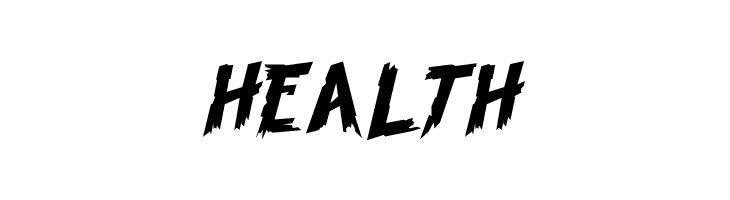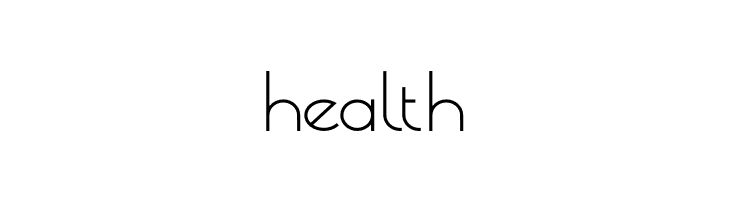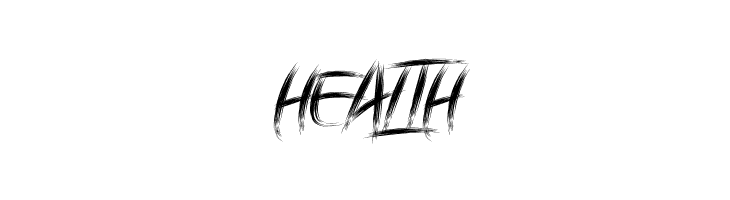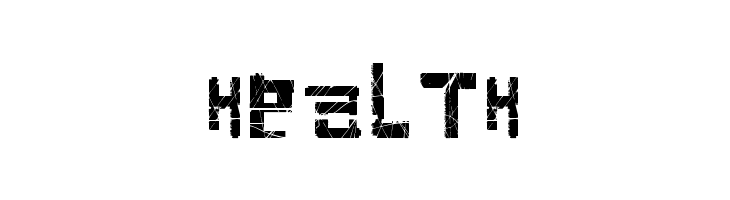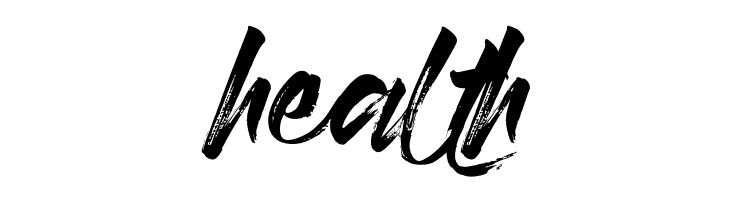
An elegant, flowing script font with sophisticated curves and loops.
A bold, jagged font with dynamic brush-like strokes.
A modern, narrow font with a clean and geometric design.
A bold, brush-style font with sharp, angular strokes and a dynamic, hand-drawn aesthetic.
A bold, fragmented font with a shattered glass effect, featuring angular and irregular shapes.
A playful handwritten font with fluid, dynamic strokes and a relaxed appearance.
A decorative script font with playful swirls and loops.
An elegant, decorative script font with outlined, swirling characters.
A dynamic and expressive handwritten font with fluid strokes and artistic flair.
A bold, brush-style font with dynamic, hand-painted strokes.